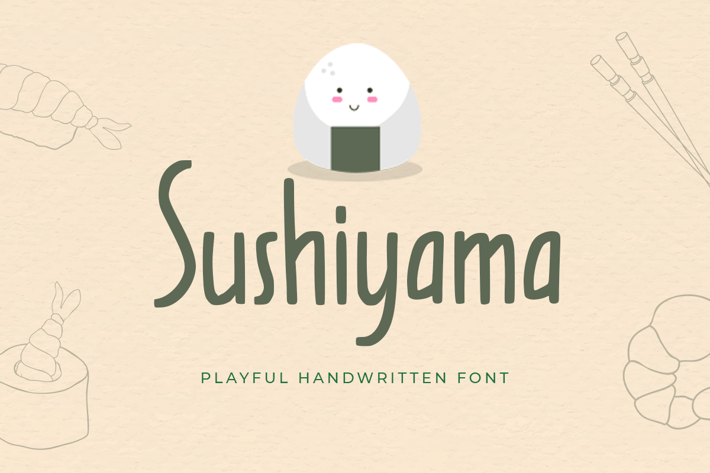
Shusiyama - Playful Handwritten Font
Shusiyama is a Playful Handwritten Font that's perfect for Headline, Thumbnail or Merchandise. This font specially crafted for your design projects such as banner, poster, flyer, website design, product packaging, merchandise, pillow print and so many more with easy to use but standing out results are so amazing.